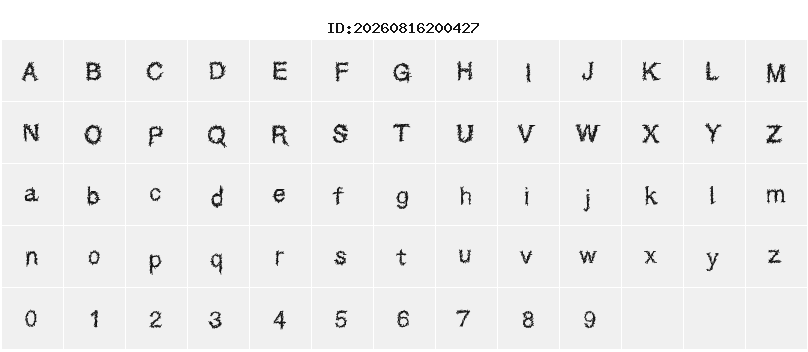
Sparatrap Preview
About Sparatrap.ttf
Sparatrap.ttf is a modern, elegant sans-serif font designed for ultimate readability and visual harmony. Perfect for branding, headlines, web design, and print materials.